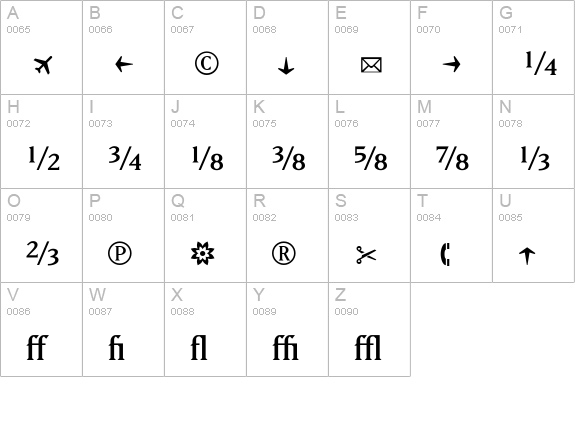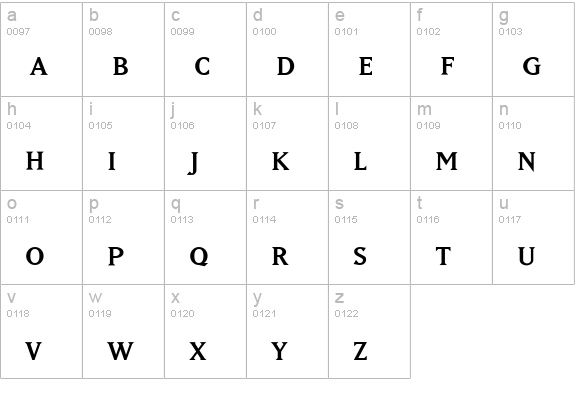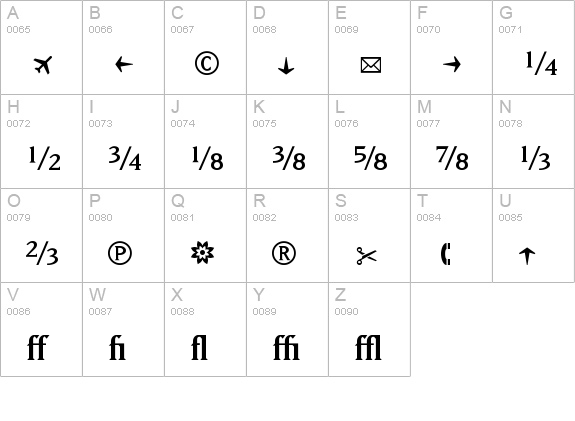
MatrixFractions Font Details
Introducing MatrixFractions Font, a modern and sleek typeface designed to elevate your design projects to the next level. This unique font features a perfect balance of geometric shapes and clean lines, making it ideal for a wide range of design applications. With its futuristic and sophisticated look, MatrixFractions Font adds a touch of elegance to any project. What sets MatrixFractions Font apart is its ability to seamlessly blend into various design styles, from minimalist to futuristic. This versatile font is perfect for branding, logos, posters, websites, and more. Whether you're working on a corporate project or a creative endeavor, MatrixFractions Font is sure to make a statement. The best part? MatrixFractions Font is completely free to download at FontsMarket.com. Don't miss out on this opportunity to enhance your design toolkit with this stunning and versatile font. Download MatrixFractions Font today and take your designs to new heights!